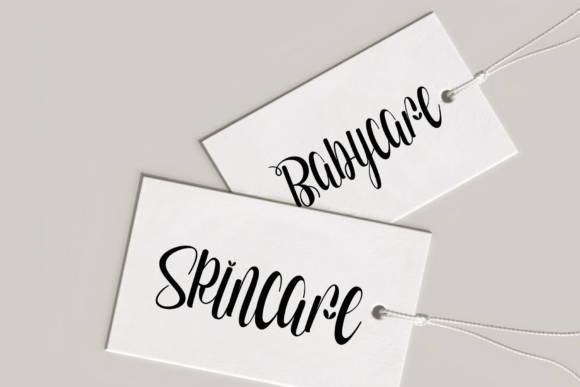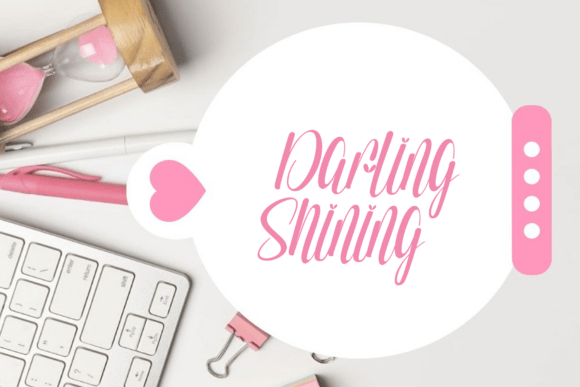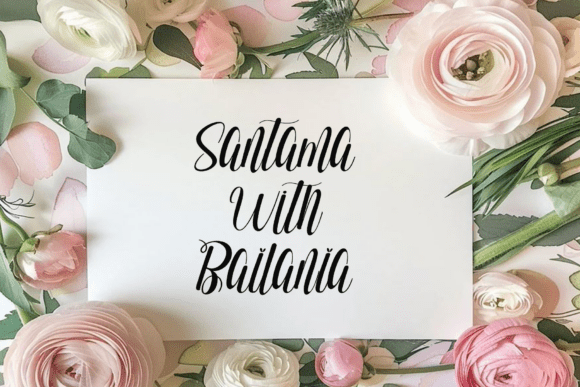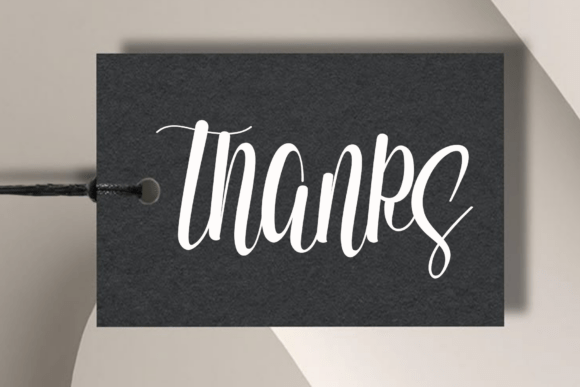
Introduction to Butter Sigma Font
Butter Sigma is a beautifully flowing script font that radiates charm and sophistication.
With smooth curves and a handwritten feel, itโ€™s perfect for wedding invitations, personal branding, elegant packaging, and romantic quotes .
Key Features of Butter Sigma Font